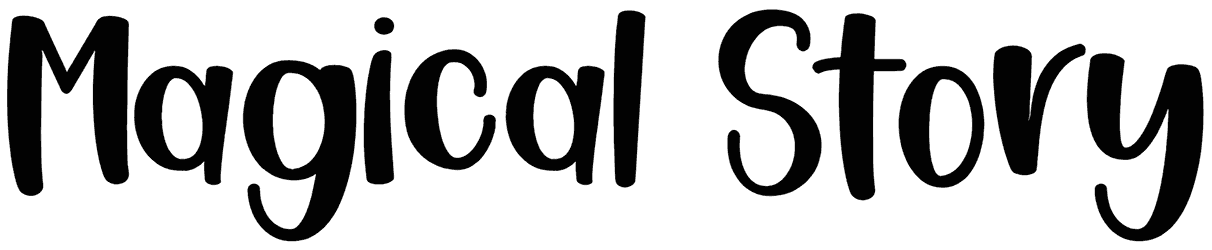
Magical Story Font
Magical Story is a lovely cartoon font which all of its characters designed in three distinctive styles and widening your selection range in the middle of creating eye-catching posters, brochures, menus, illustrations, or flyers.
This masterpiece carries crooked and rounded characters, so it leads to a feeling of dynamic, playfulness, vitality, or tenderness. Bear in mind that a vast collection of various fonts is available on the RB archive only for your own convenience.